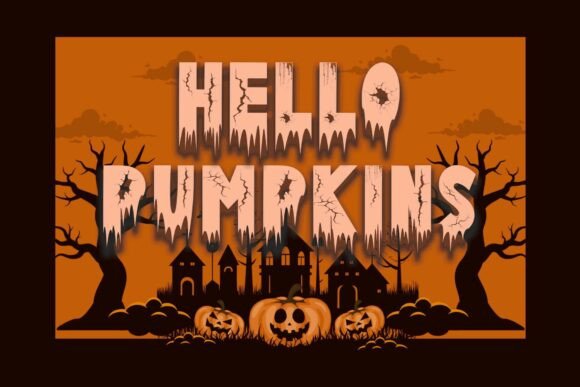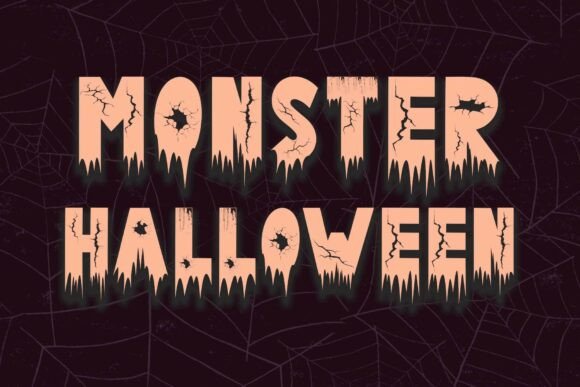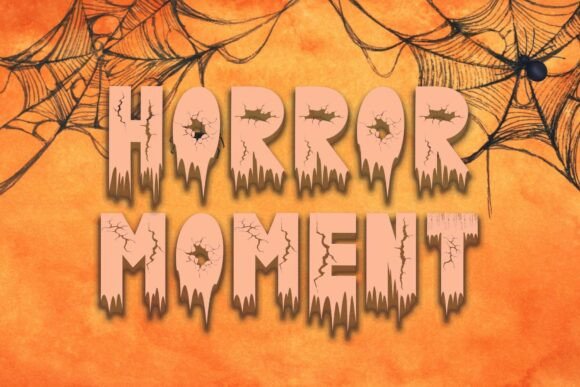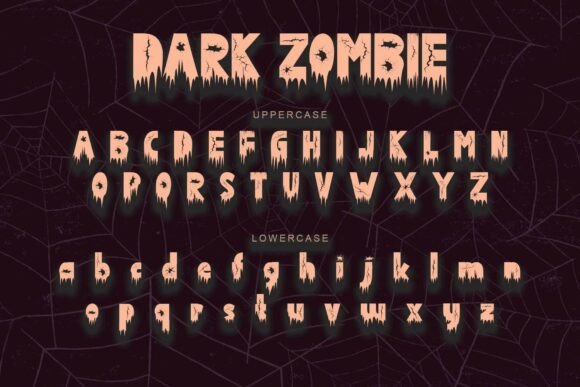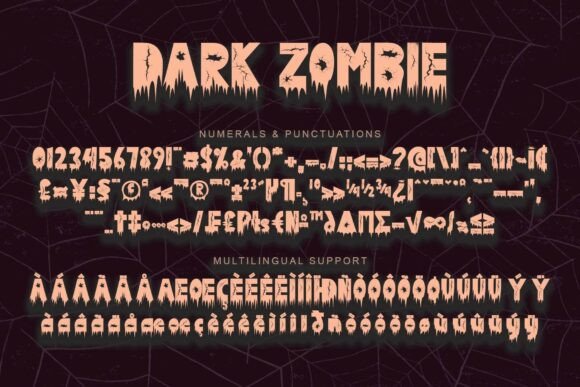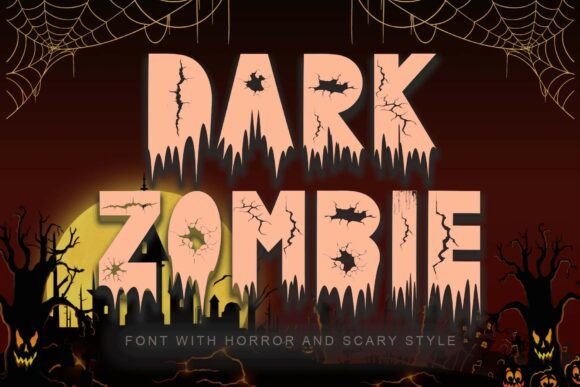
Unleash the Apocalypse: Exploring the Dark Zombie OTF Font
In the realm of typography, few fonts evoke the same level of unease and drama as the Dark Zombie OTF Font. This font is not just a collection of letters; it’s an experience, a visual journey that takes you through the desolate landscapes of a post-apocalyptic world. Crafted with meticulous attention to detail, Dark Zombie delivers a high-impact typographic experience that’s perfect for designers and crafters looking to add a touch of darkness and decay to their projects.
The Anatomy of Dark Zombie
At first glance, the Dark Zombie typeface appears to be a chaotic mess of fragmented surfaces and deep, irregular fissures. Each letterform is a masterclass in distressed design, with sharply broken edges and surfaces that seem to melt into pointed drips and angular tapering. This creates a sense of downward pull, as if the very foundations of the letters are crumbling beneath your eyes.
The base of the characters is where the magic happens. The melting, dripping effect creates a sense of movement, as if the letters are being consumed by some unseen force. This sense of decay and deterioration is precisely what makes Dark Zombie so compelling. It’s a font that doesn’t just convey a message; it tells a story of desolation and despair.
Texture and Tactility
One of the standout features of Dark Zombie is its texture work. The blend of controlled breakage and naturalistic erosion creates a tactile quality that’s hard to find in digital fonts. Fine crack lines and crater-like perforations add a level of depth and dimensionality, simulating the brittle surface of aged plaster or scorched earth.
This attention to detail is what sets Dark Zombie apart from other distressed fonts. The texture is not just a superficial effect; it’s an integral part of the font’s DNA. When you use Dark Zombie, you’re not just using a font; you’re adding a layer of grit and texture to your design.
Legibility and Versatility
While Dark Zombie is undoubtedly a dramatic font, it’s also surprisingly legible. Subtle depth shadows enhance the font’s readability against both light and dark backgrounds, making it versatile for a range of design applications. Whether you’re creating a poster, a logo, or a website, Dark Zombie can handle it.
The intentional tight letter spacing also adds to the font’s sense of compression, increasing tension in display settings. This makes Dark Zombie perfect for headlines, titles, and other display text where you want to grab the reader’s attention.
Vertical Rhythm and Instability
One of the most striking aspects of Dark Zombie is its vertical rhythm. The jagged edges and fractured surfaces create a sense of instability, avoiding repetition and maintaining a sense of unease. This is precisely what makes Dark Zombie so effective at evoking a sense of decay and desolation.
The irregularity of the font’s vertical rhythm also adds to its sense of drama and tension. It’s a font that’s always on the edge, always teetering on the brink of collapse. This sense of instability is precisely what makes Dark Zombie so compelling.
Optimization and Usage
When using Dark Zombie, feel free to experiment with different colors, textures, and effects. The font’s distressed texture and dramatic flair make it perfect for a range of design applications, from horror and sci-fi to gaming and music.
Font Name Dark Zombie Otf Font
Author yogaletter6
Dark Zombie OTF Font is more than just a font; it’s an experience. It’s a journey through a desolate, post-apocalyptic world where decay and deterioration reign supreme. With its sharply fragmented surfaces, deep fissures, and tactile texture, Dark Zombie is the perfect choice for designers and crafters looking to add a touch of darkness and drama to their projects.
Whether you’re creating a horror movie poster, a gaming logo, or a website, Dark Zombie has the power to evoke unease, tension, and drama. So why settle for a boring, run-of-the-mill font when you can unleash the apocalypse with Dark Zombie OTF Font?